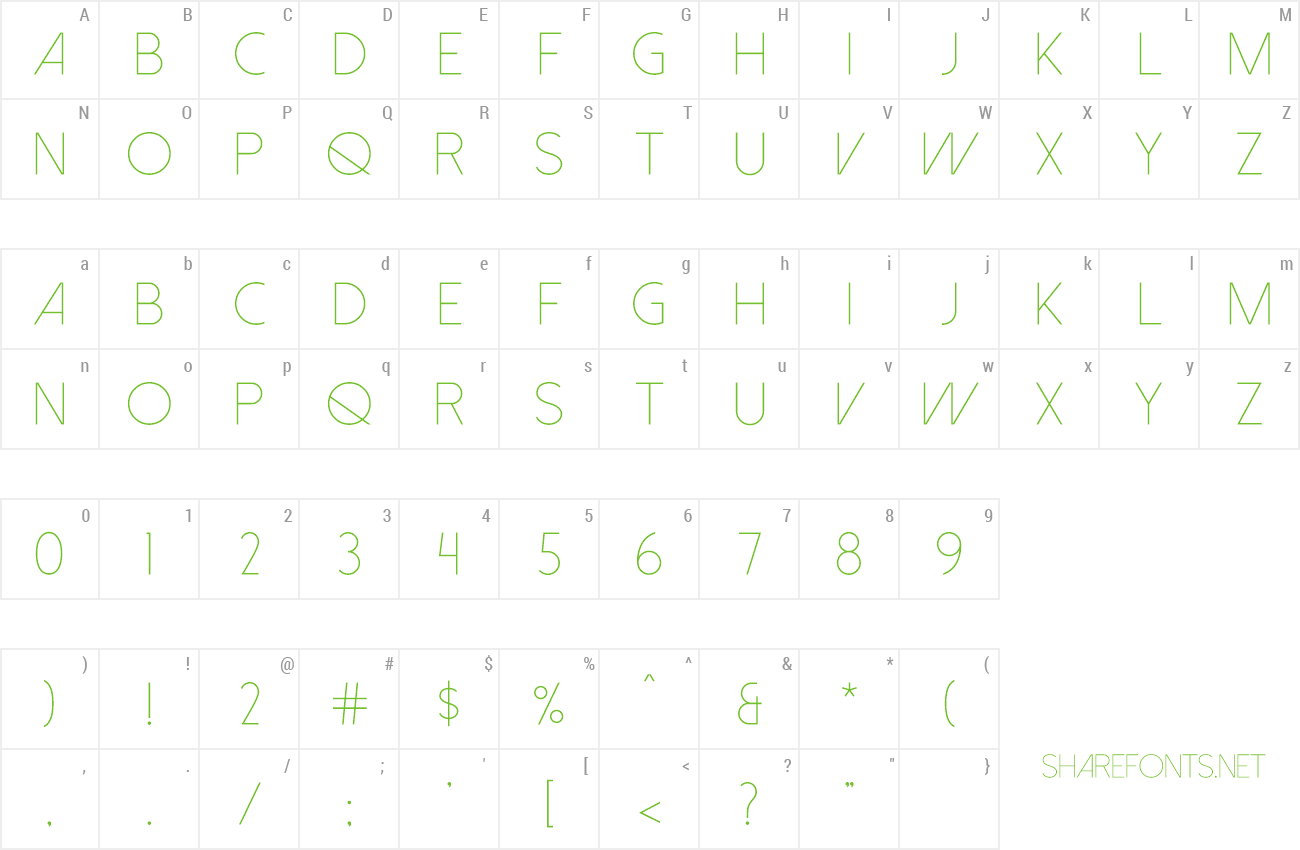
Dolce vita font download mac. The dolce vita is a capital font made for designers, by designers. Light, normal, and bold, for your designs pleasure and convenience. Fonts dolce vita in sans serif category.
This is a capital font made for designers, by designers. Light, normal, and bold, for your designs pleasure and convenience. Whether you need logos, body types, or anything in between, dolce vita is ready to spice things up for you!